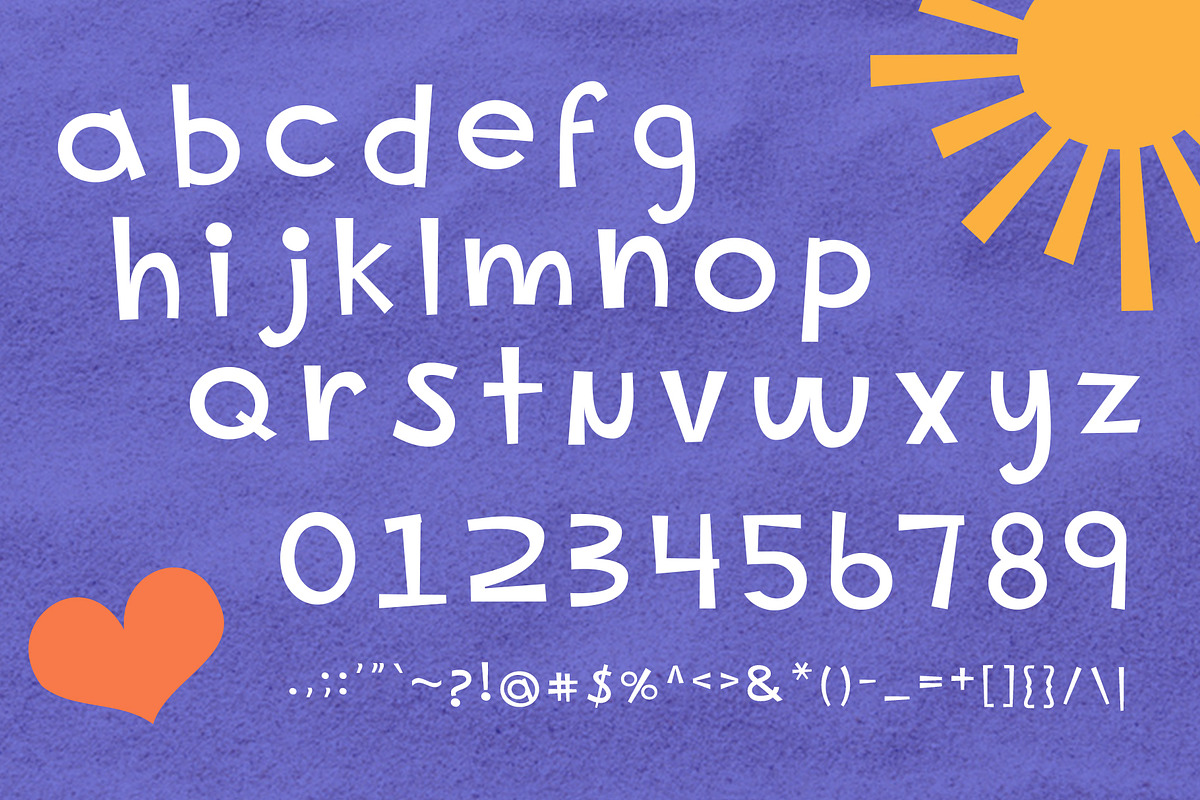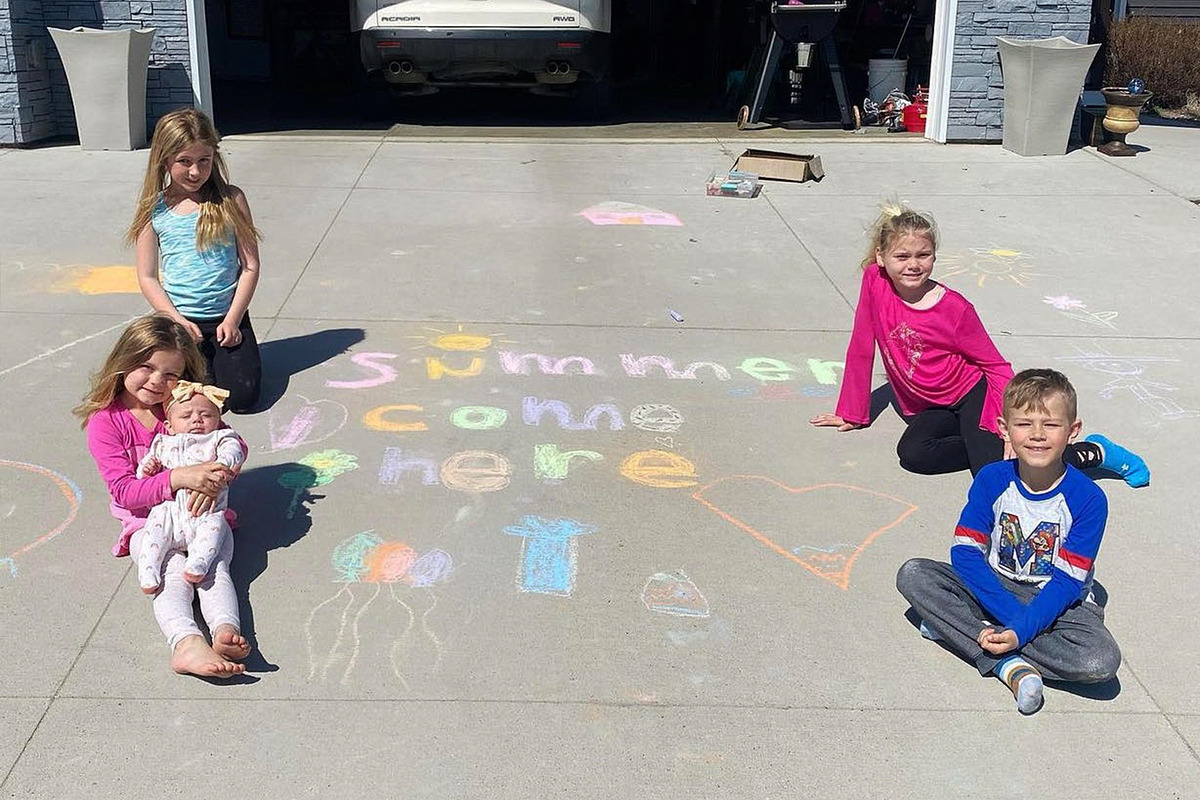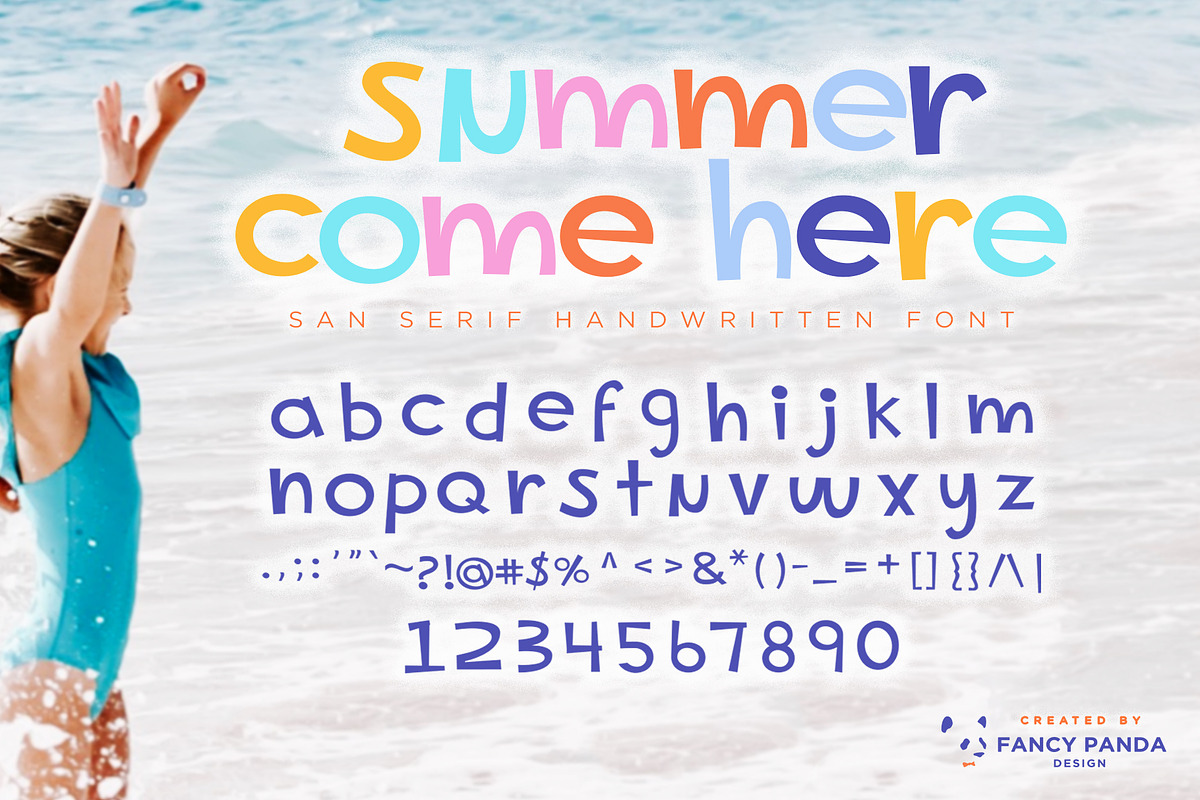
Summer Come Here
Summer Come Here! After a long winter, we are all ready for some green grass, warmer weather, and fun in the sun! 'Summer Come Here' is a font that was inspired by my nieces and nephews sidewalk chalk art. As soon as I saw their artwork I knew I had to create something with their masterpiece. This typography is filled with summer vibes in a fun, youthful, san serif typeface. Bring on SUMMER!